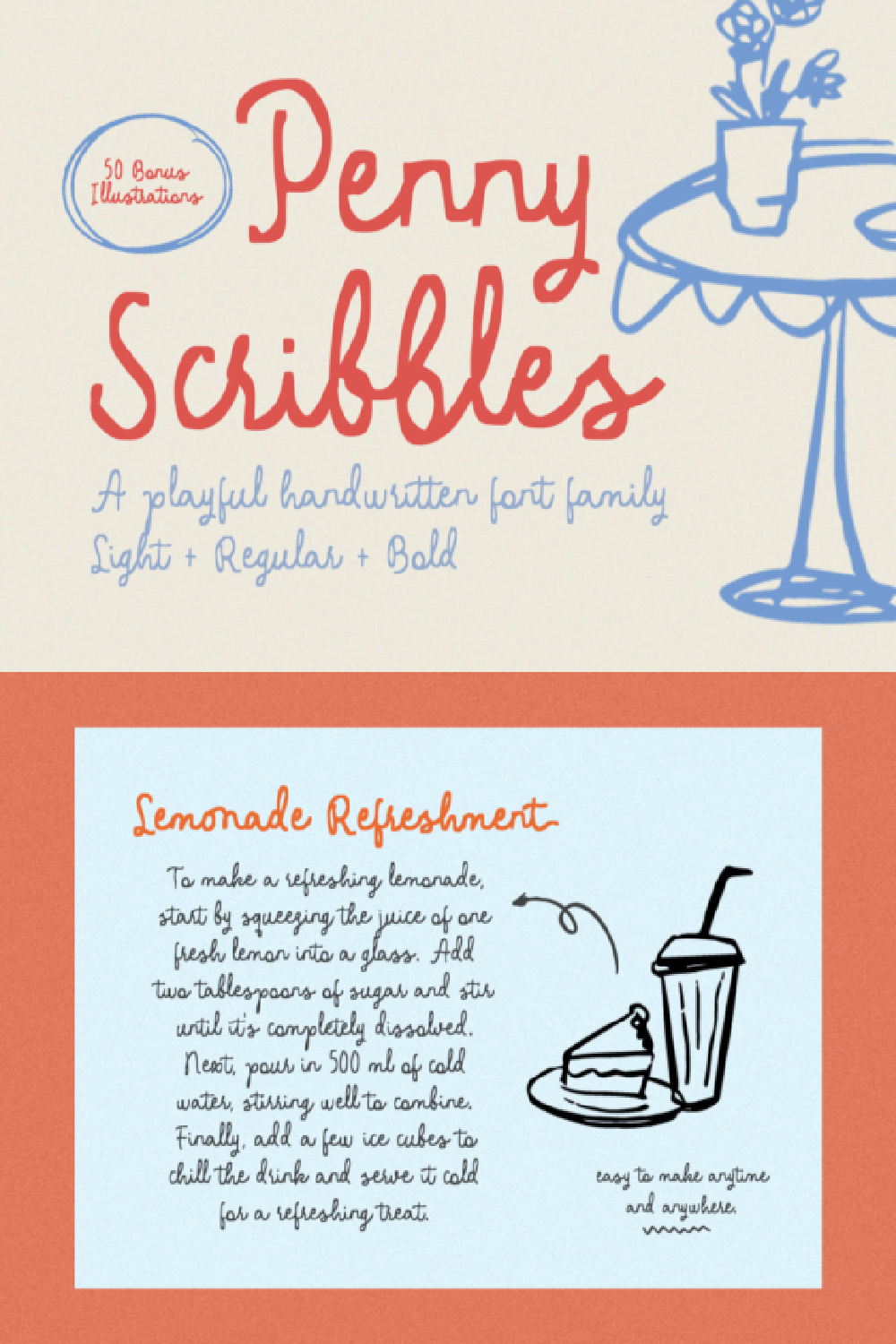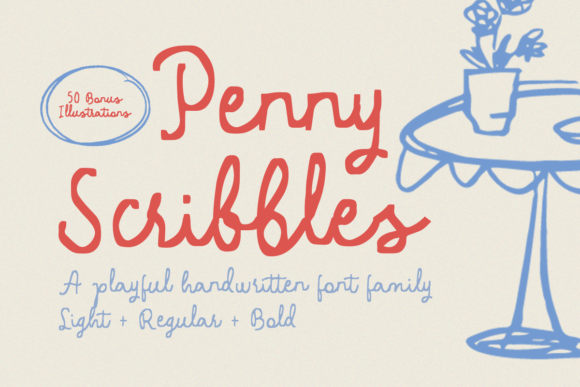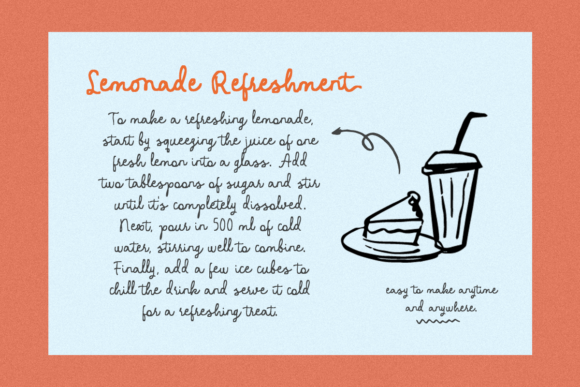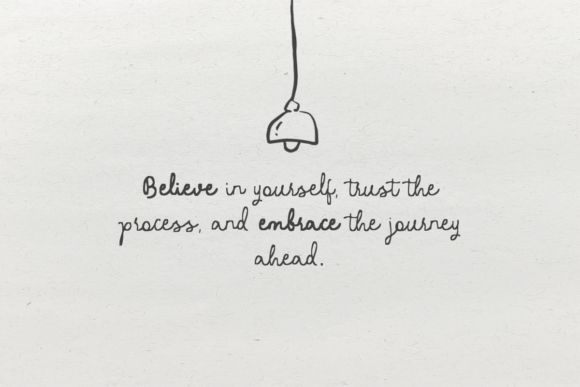
Penny Scribbles Font: A Playful Handwritten Font + Cute Illustrations!
About the Penny Scribbles Font
From logos to headlines, the Penny Scribbles Font is the perfect choice for making a lasting impression. Penny Scribbles is a handwritten font family with playful, messy strokes that resemble a child’s handwriting, yet with a modern touch. This font is perfect for designs with a whimsical, childlike vibe, such as food menus, recipes, and more.
What’s even more special is that you’ll also receive 50 unique illustrations to pair with your font or use for other design needs. The files are provided in both SVG and PNG formats.
Its playful, slightly messy nature makes Penny Scribbles ideal for projects requiring a youthful, approachable feel. Think children’s books, branding for artisanal food companies, playful invitations, or social media graphics. However, its informal style is unsuitable for body text, lengthy documents, or applications demanding high readability, such as websites or UI elements. The inconsistent stroke weights would hinder legibility in extended text.
Pairing Penny Scribbles effectively requires a contrasting typeface to balance its informality. A clean sans-serif like Open Sans or Lato would create a strong visual counterpoint, providing structure and readability where Penny Scribbles offers charm. Alternatively, a more structured serif like Merriweather could add a touch of classic elegance, tempering the font’s inherent whimsy.
Penny Scribbles projects a friendly, lighthearted personality. Its charm stems from the imperfection of its hand-drawn style, suggesting warmth and authenticity. This makes it perfect for brands prioritizing approachability and a connection with younger demographics or those targeting a family-friendly market.